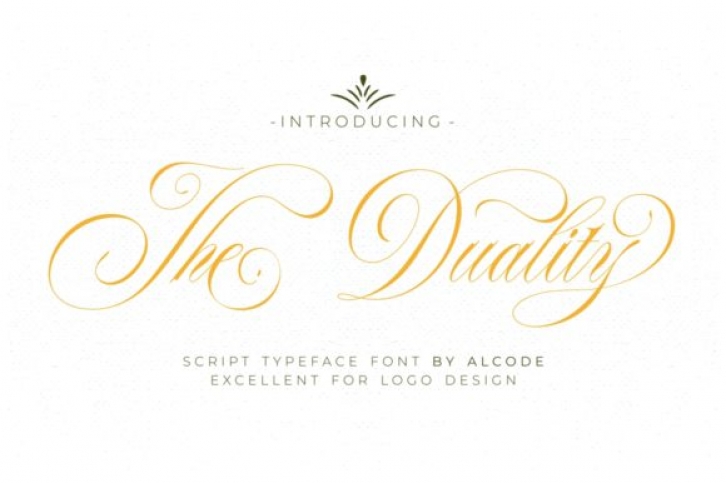
The Duality is a sophisticated script font. It’s perfect for logos, branding, wedding invitations and much more! It will take your designs to the next level!